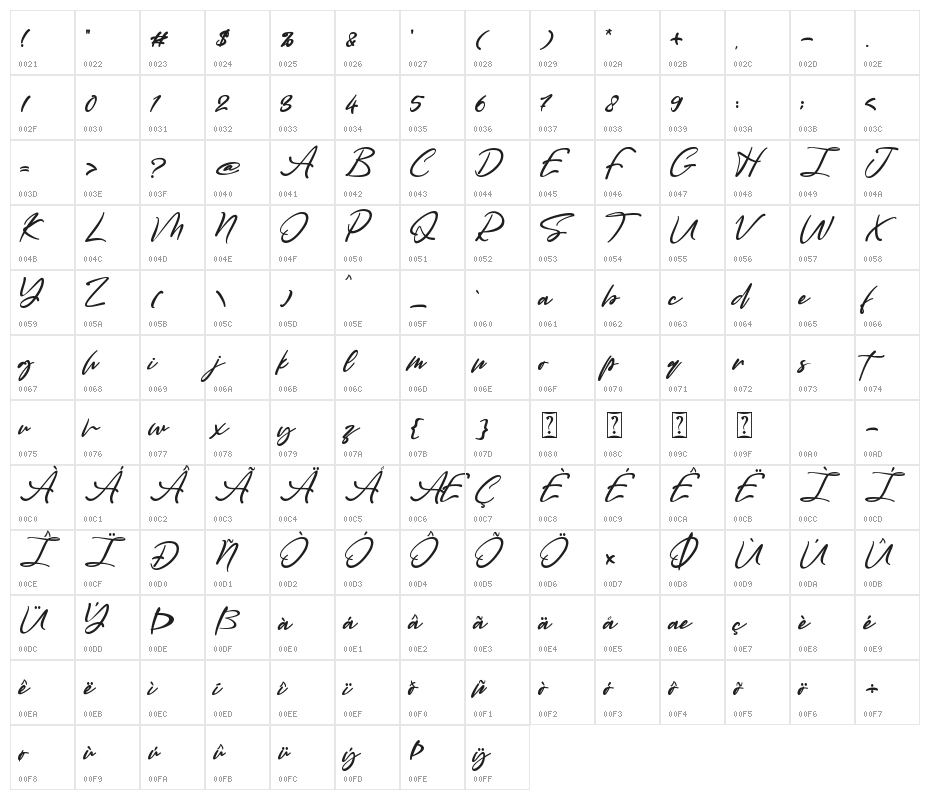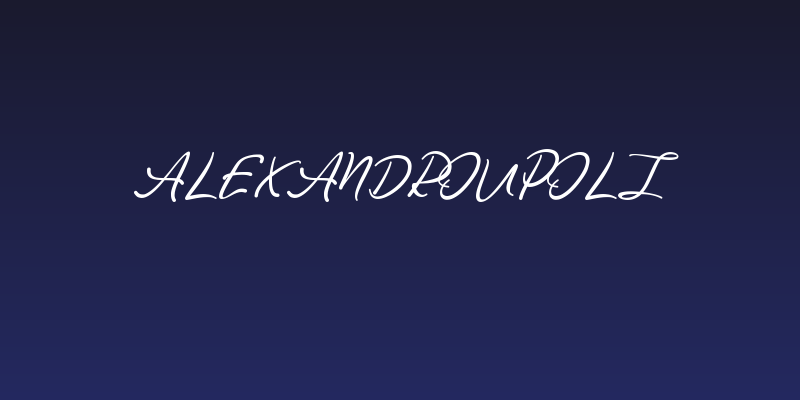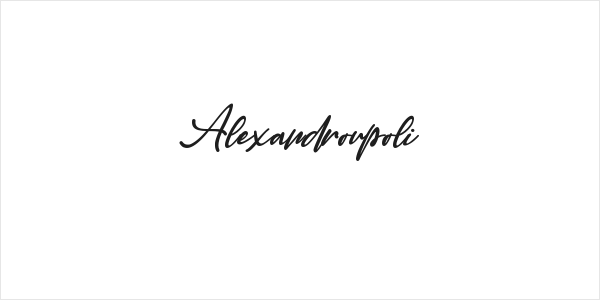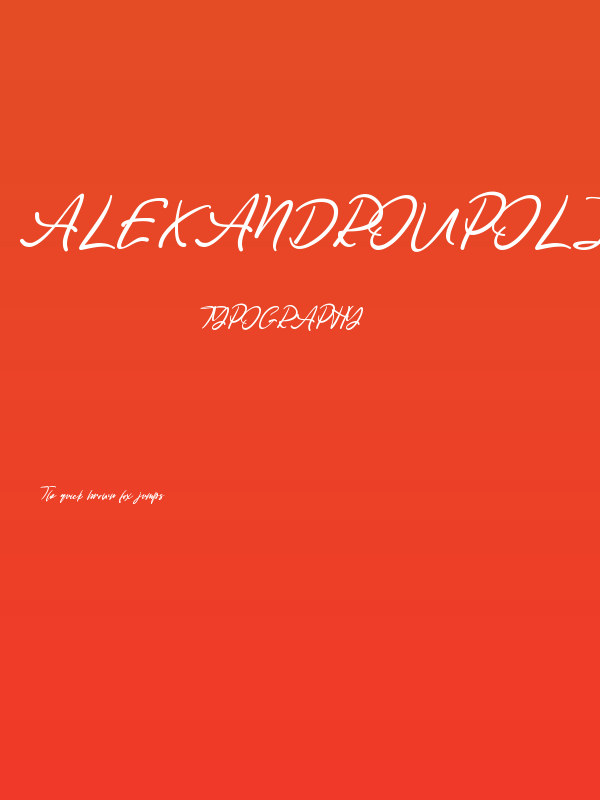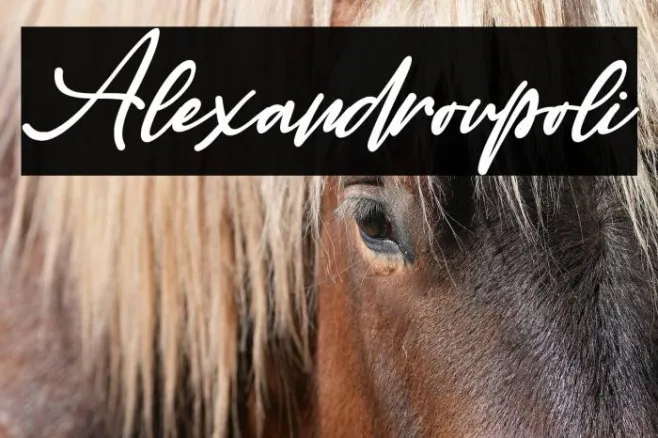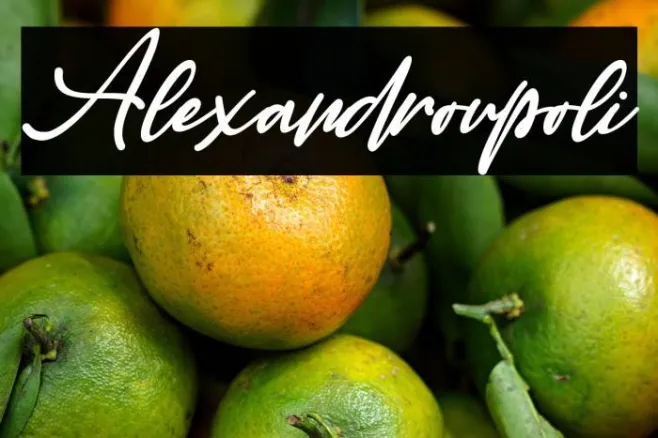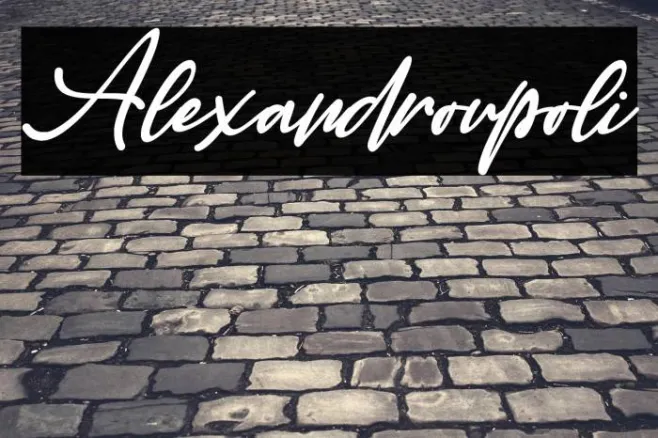
Alexandroupoli Font
Alexandroupoli Description
This font exudes a dynamic and fluid style, characterized by its cursive script that mimics elegant handwriting. The uppercase letters are slightly more structured, maintaining a consistent slant and flow, while the lowercase letters are more freeform, adding a personal touch. The numerals and special characters follow the same cursive style, ensuring uniformity across all characters. The strokes are smooth and continuous, with a medium contrast that enhances readability without sacrificing the artistic flair. This font is perfect for projects that require a personal or artistic touch, such as invitations, greeting cards, or branding materials.
| Overall Style | Elegant, Artistic |
| Proposed Projects | Ideal for invitations, greeting cards, branding, and artistic projects. |